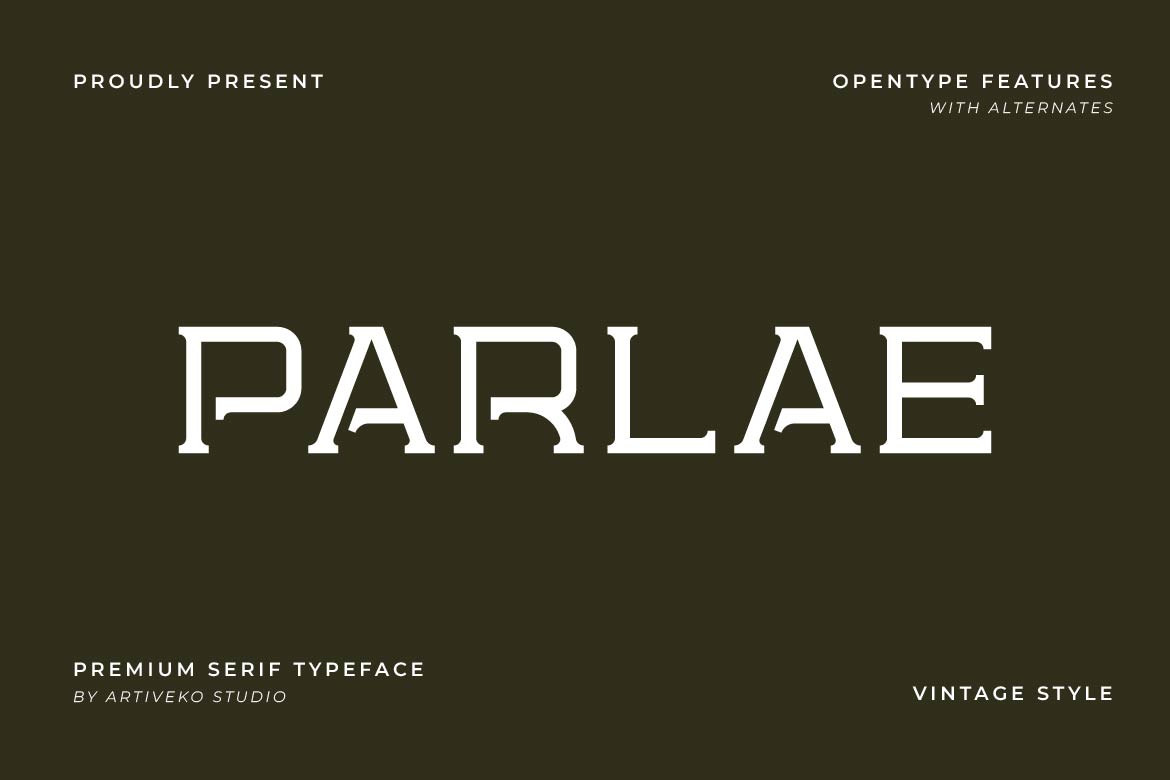
- Parlae – Vintage Serif Font for Classic Branding
Parlae is a vintage serif typeface that blends timeless elegance with classic craftsmanship. Inspired by traditional typography and refined serif details, Parlae delivers a sophisticated personality that feels authentic, warm, and enduring.
Whether you’re creating a vintage-inspired logo, elegant packaging, or a classic editorial layout, Parlae offers a refined typographic experience that never goes out of style.
Parlae isn’t just a font—it’s a timeless serif crafted to celebrate heritage, elegance, and lasting design.